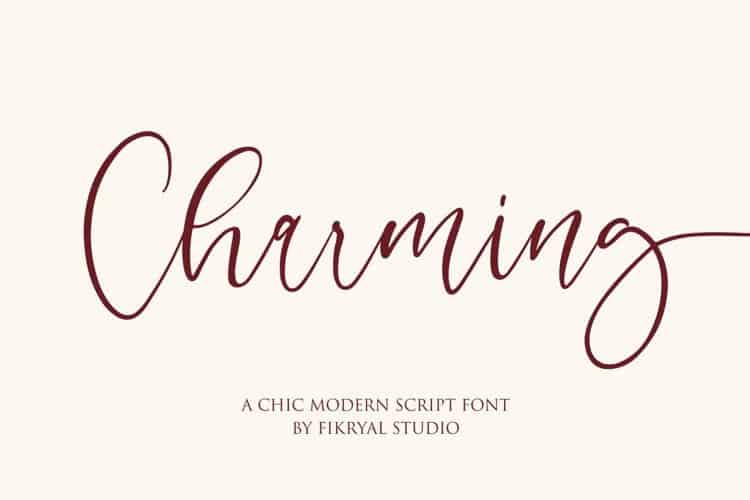
Charming – Modern Script Font
This font is made in a modern style with a very beautiful beginning and ending.
elegantly, but very casual and suitable for your various design needs